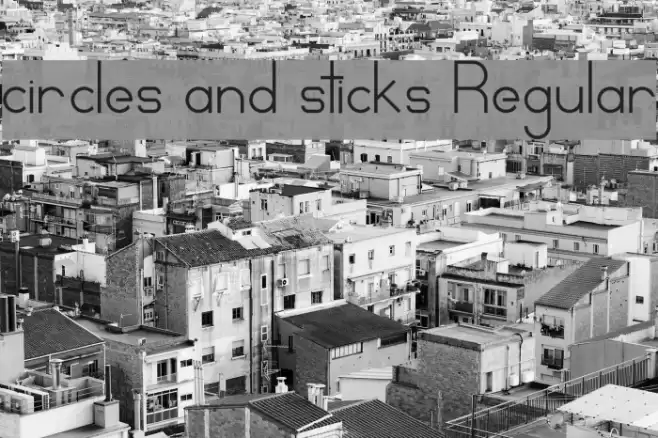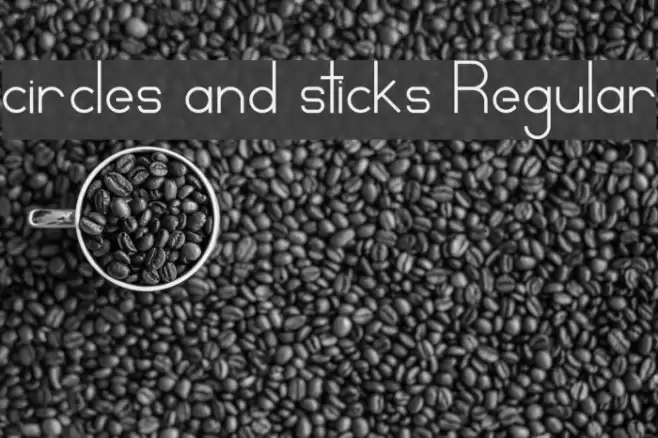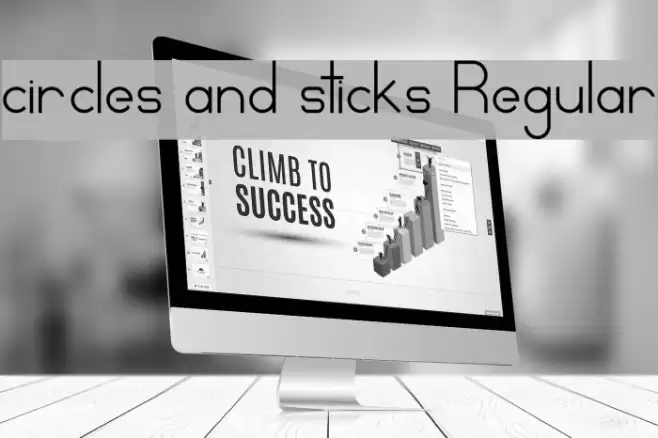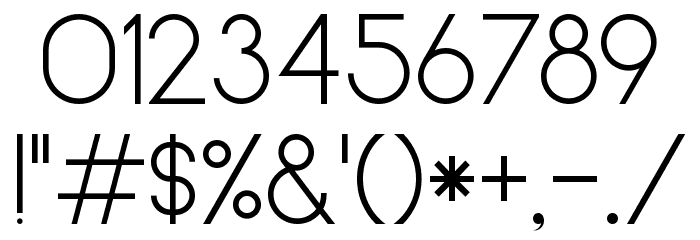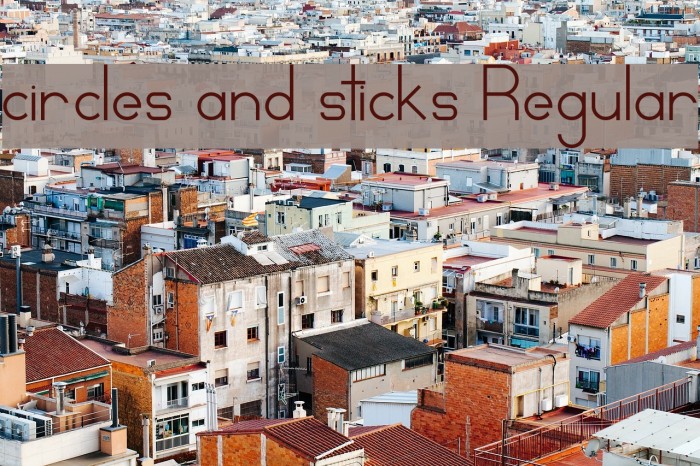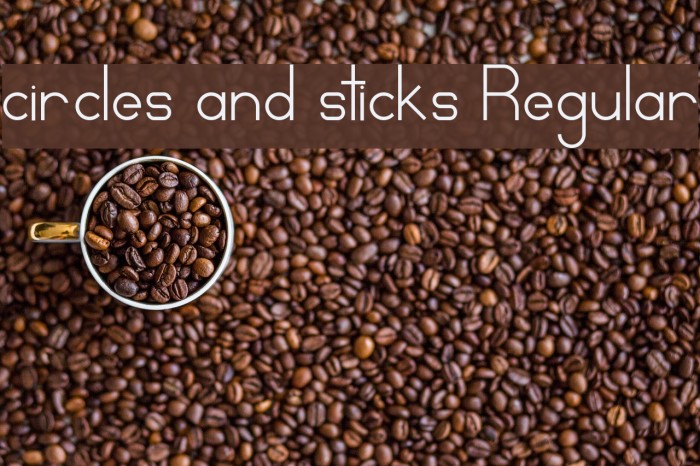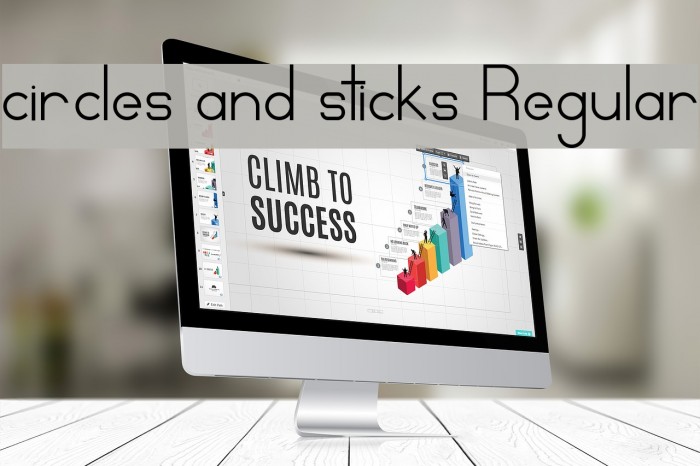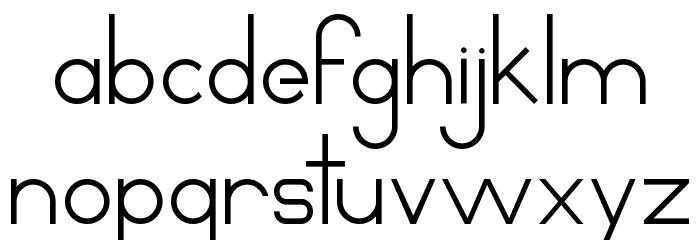
circles and sticks Regular Font
circles and sticks Regular Description
This font features a clean and minimalist design, characterized by its geometric shapes and thin lines. The uppercase and lowercase letters are crafted with a consistent stroke width, giving it a uniform appearance. The characters are primarily composed of circles and straight lines, creating a modern and sleek look. The numerals and special characters maintain the same geometric style, ensuring cohesion across all elements. This font is highly legible and versatile, making it suitable for a variety of design applications.
A geometric, minimalist font with thin lines and consistent stroke width from Uncategorized fonts.
- Proposed Projects: Ideal for modern branding, minimalist posters, tech-related designs, and clean web interfaces.
- Use Case: Headlines, Logos, Web design